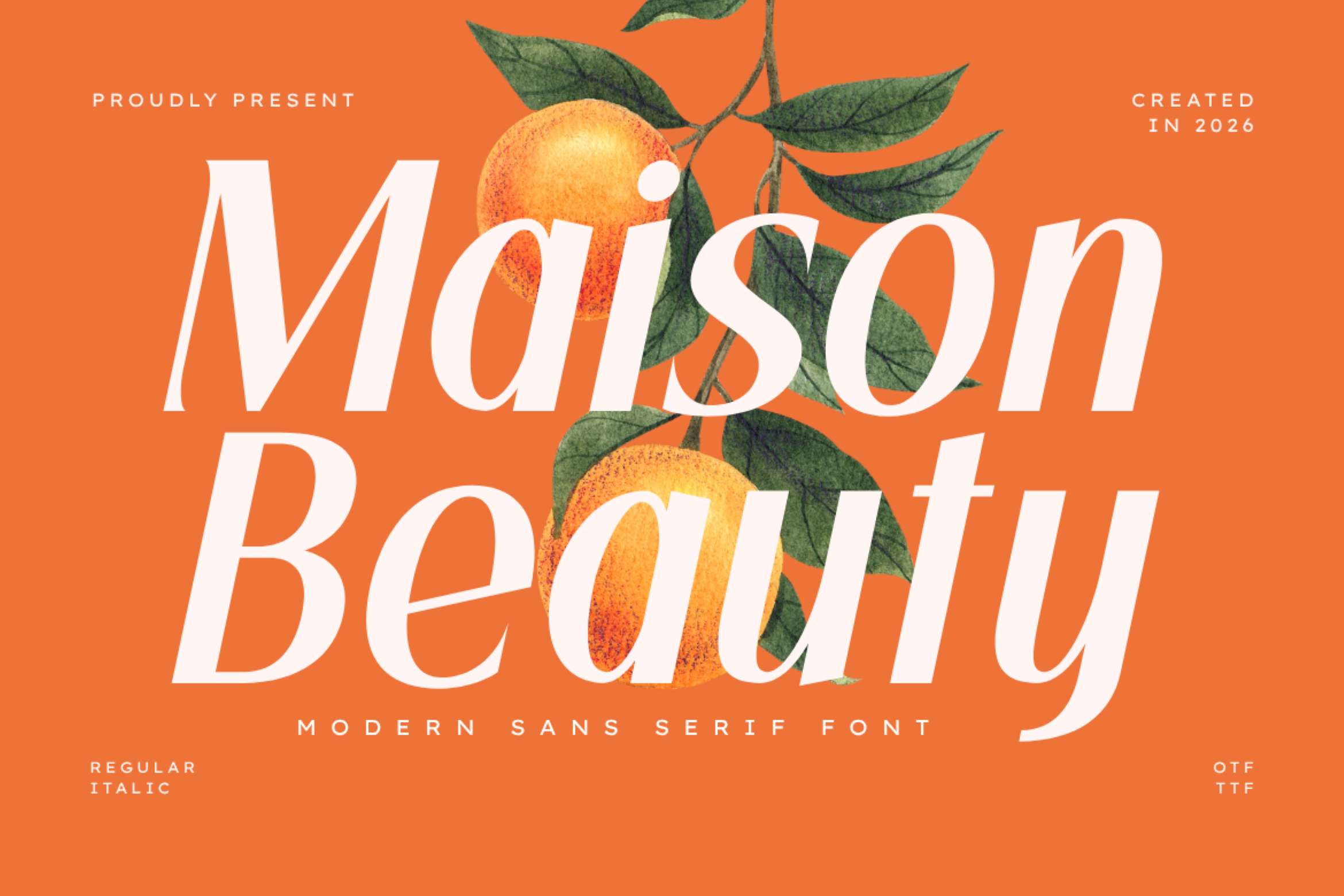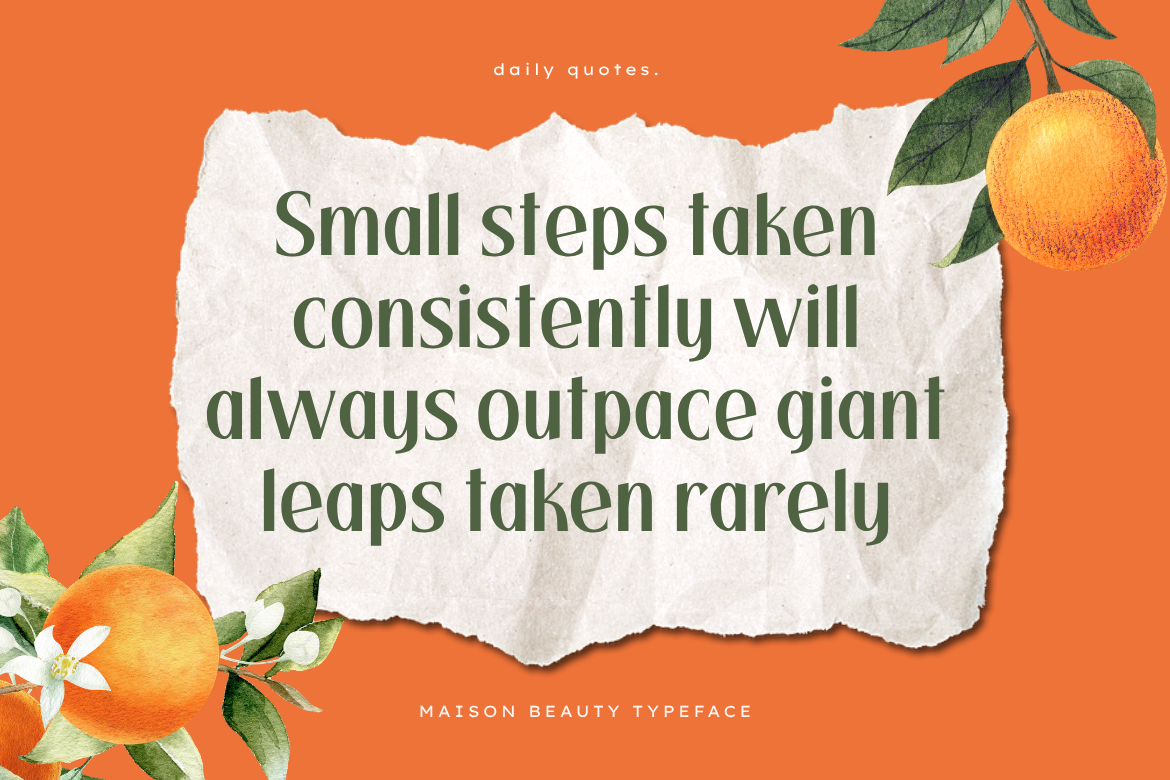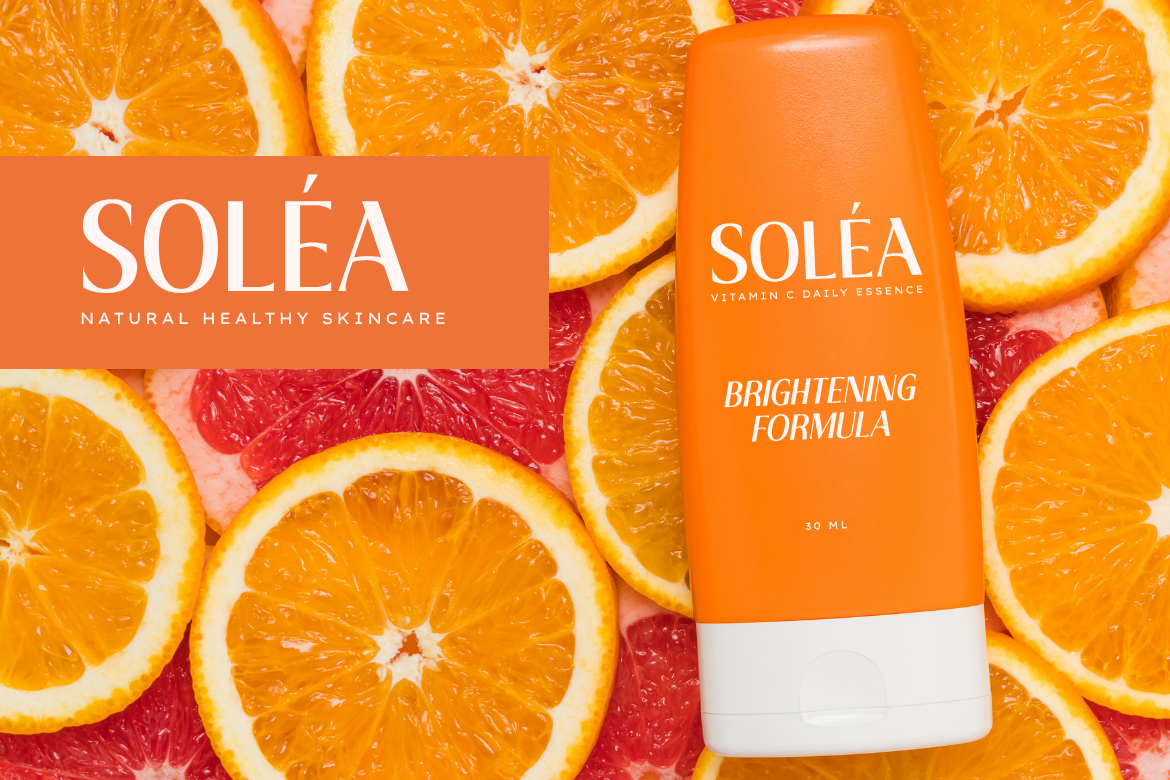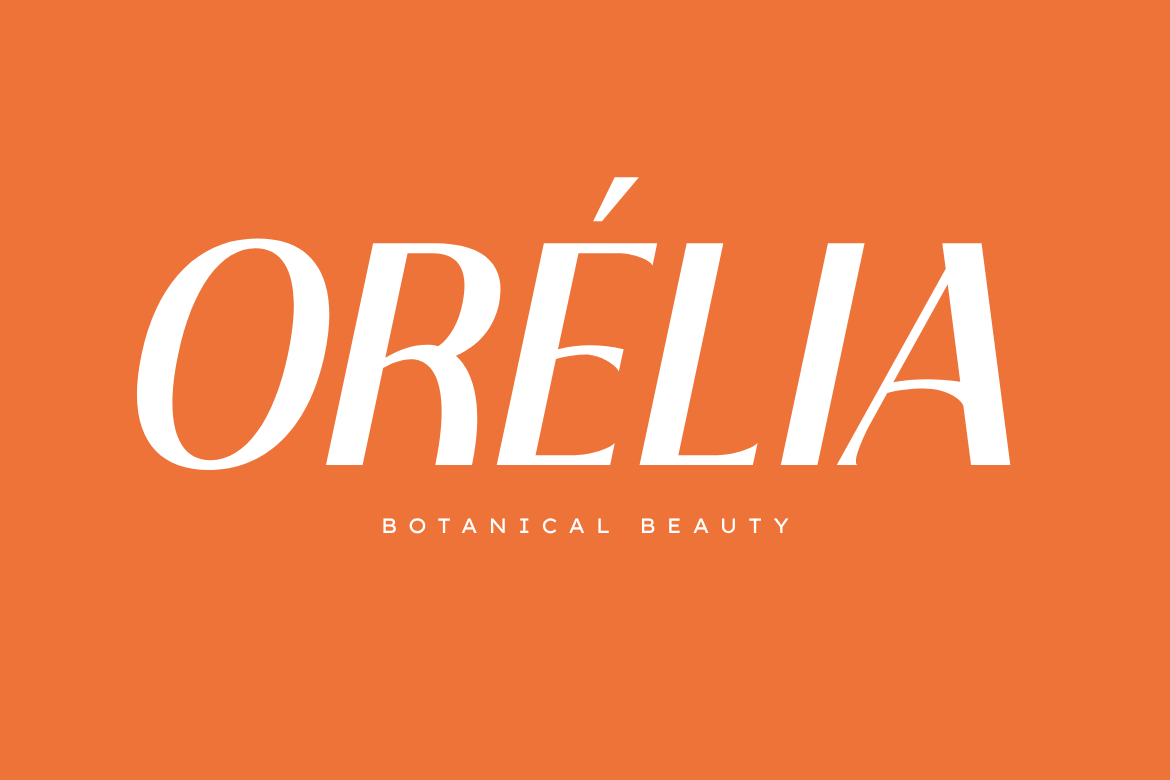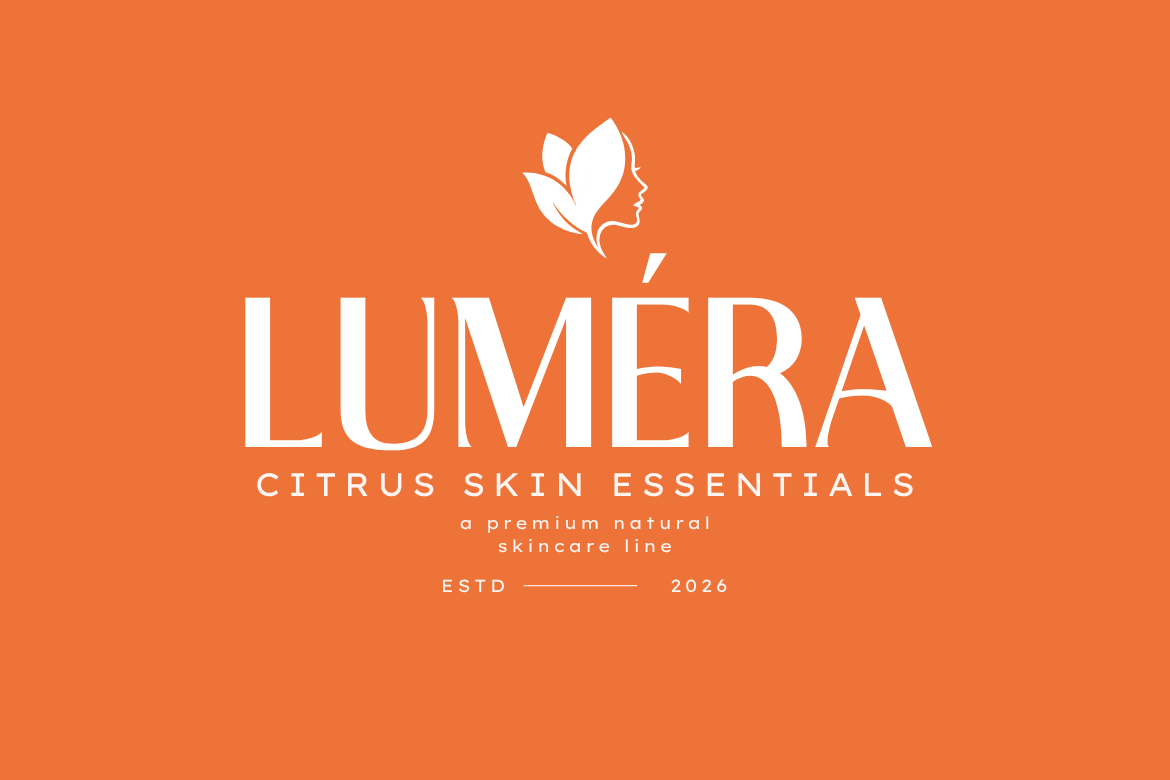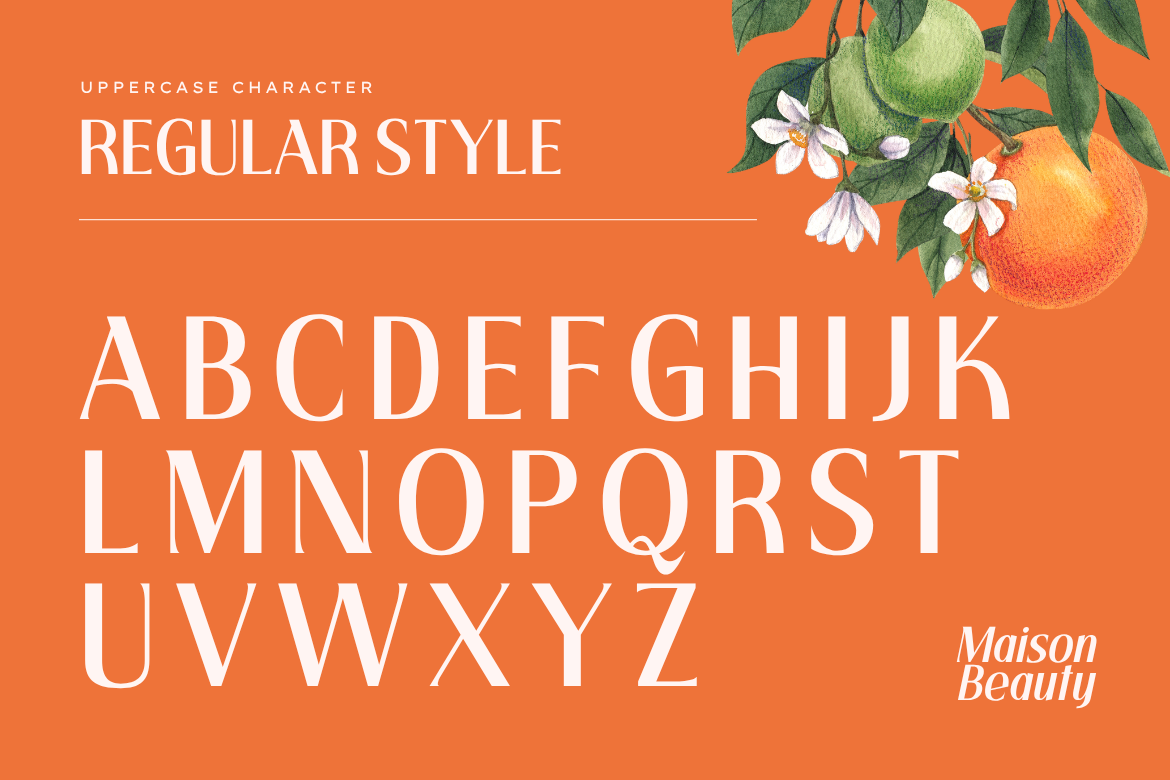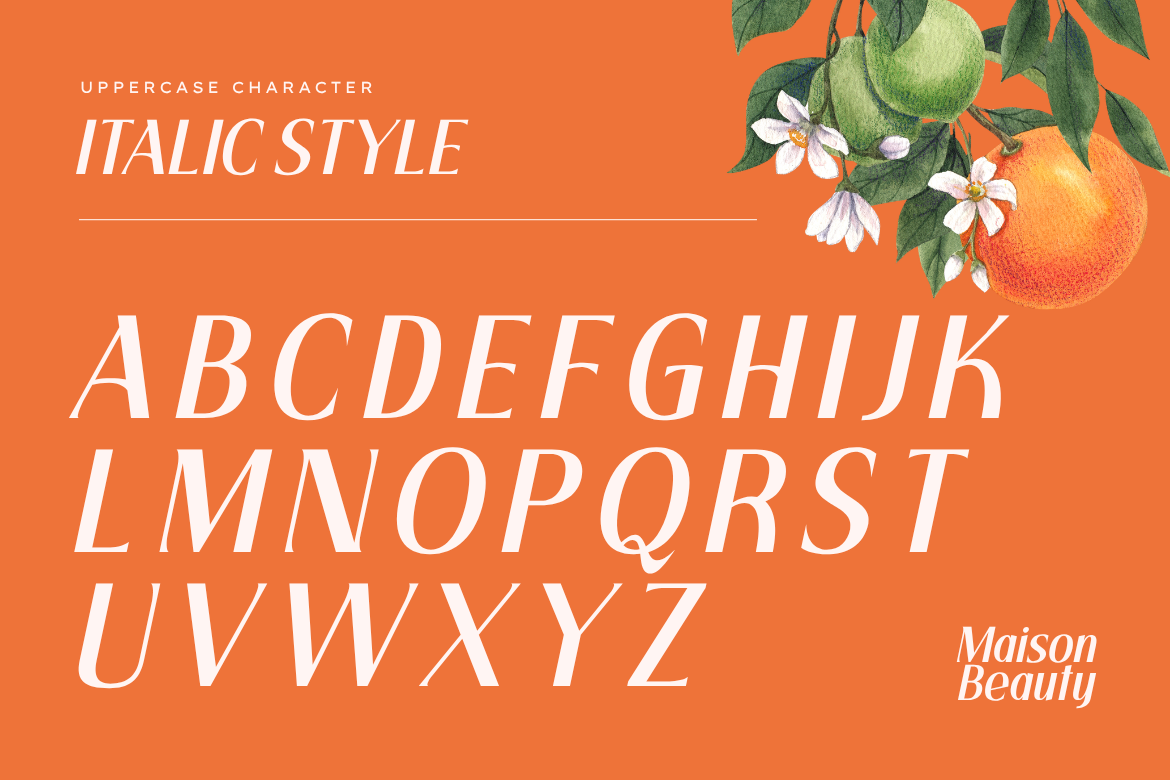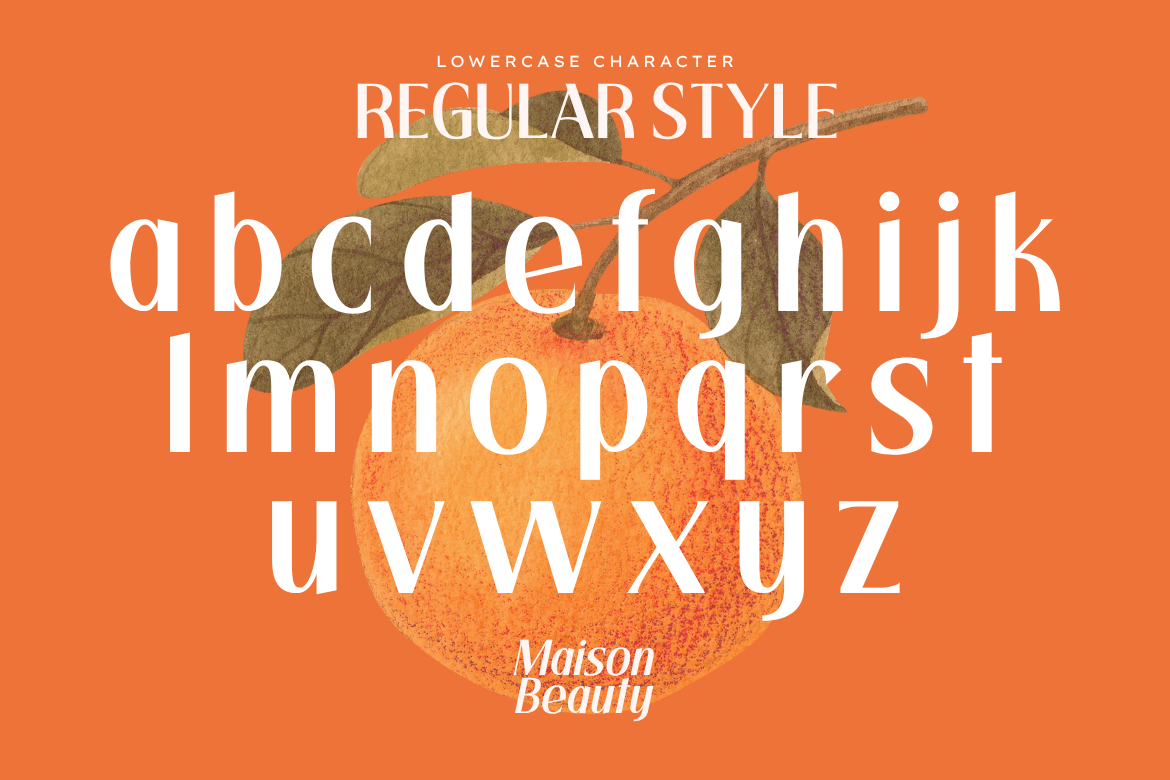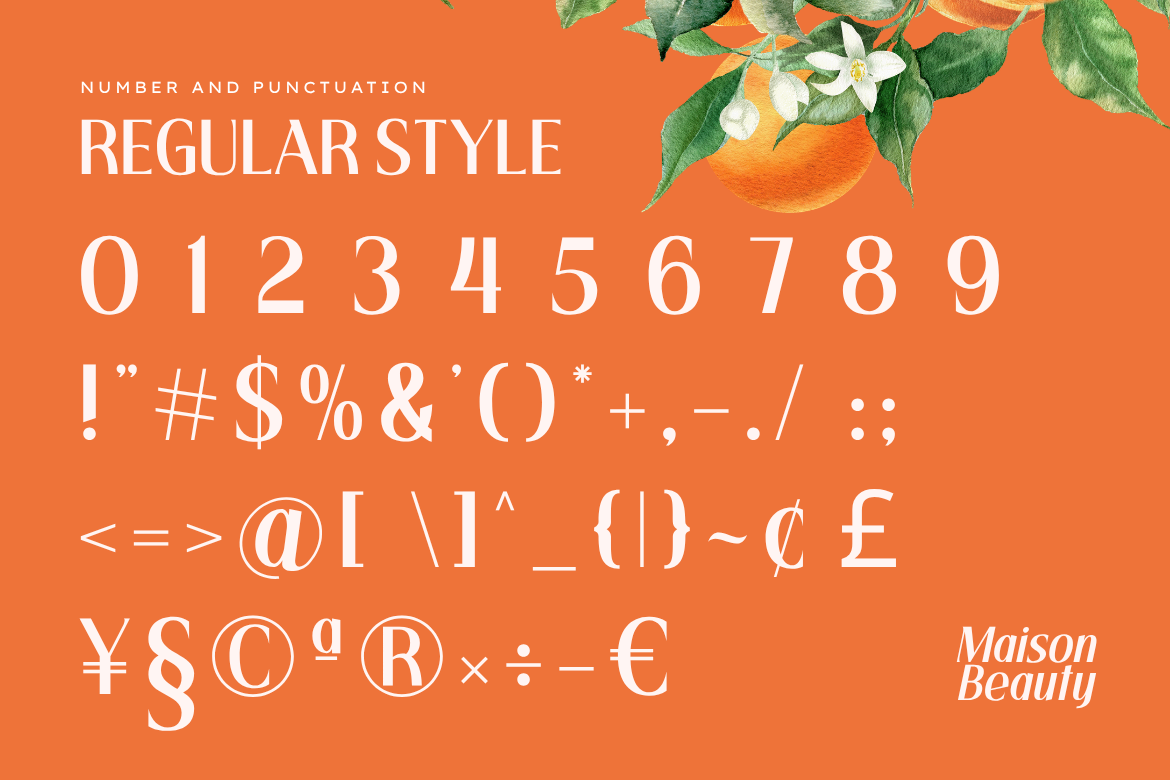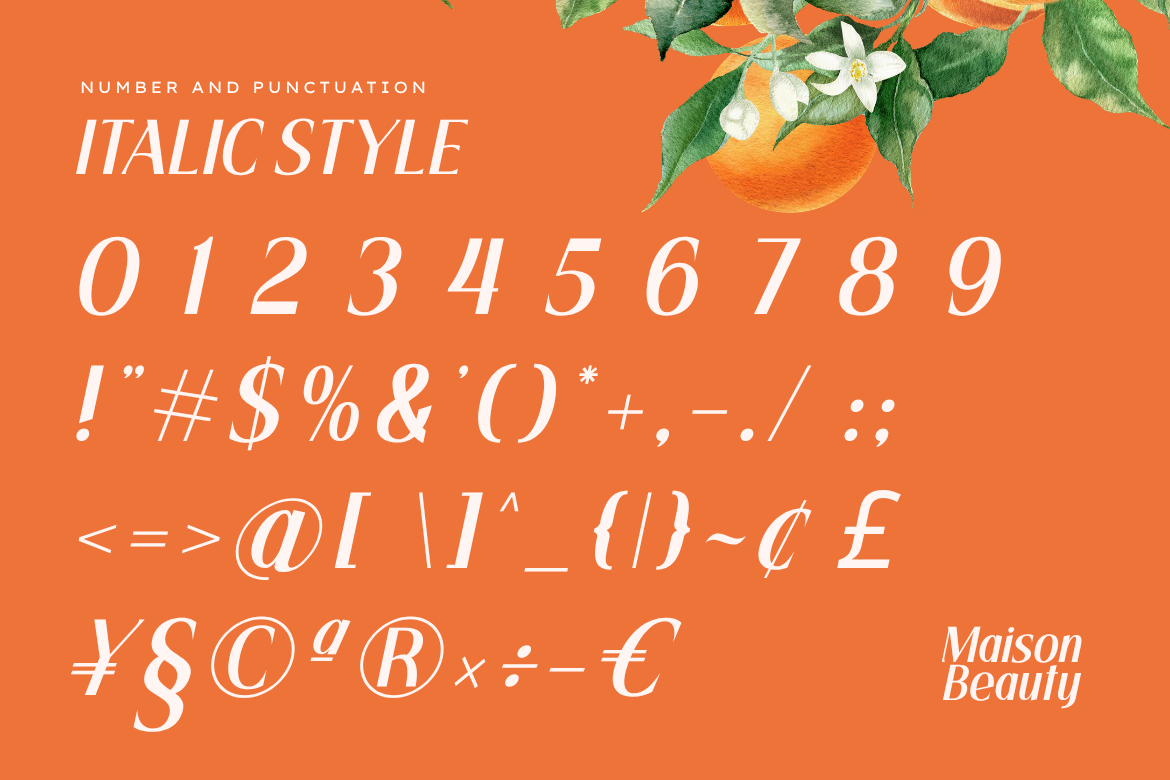
Maison Beauty - Modern Sans Serif Font
Maison Beauty is a sophisticated modern sans serif font designed to bring timeless elegance and high-end professional style to your creative projects.
This typeface features beautifully balanced letterforms with clean lines and refined minimalist architecture, making it exceptionally versatile for luxury visual identities. Its sleek structure, subtle slant, and high-impact display design ensure that each character flows with grace, delivering a polished look that perfectly captures the essence of contemporary simplicity and editorial sophistication.
Whether you are crafting a brand identity for a premium startup, designing sleek corporate materials, or creating layouts for lifestyle, fashion, and cosmetic magazines, Maison Beauty ensures your work exudes professionalism and style. It is ideal for logos, luxury packaging, websites, and high-end promotional presentations.
Designed for modern creative applications, Maison Beauty empowers you to communicate a polished, upscale aesthetic that leaves a lasting impression across both print and digital platforms.
Main Features:
Modern, stylish, and sophisticated sans serif style.
Refined, clean letterforms with professional finishing.
Includes both Regular and Italic versions.
Perfect for high-end branding, luxury logos, and editorial design.
Multilingual support.